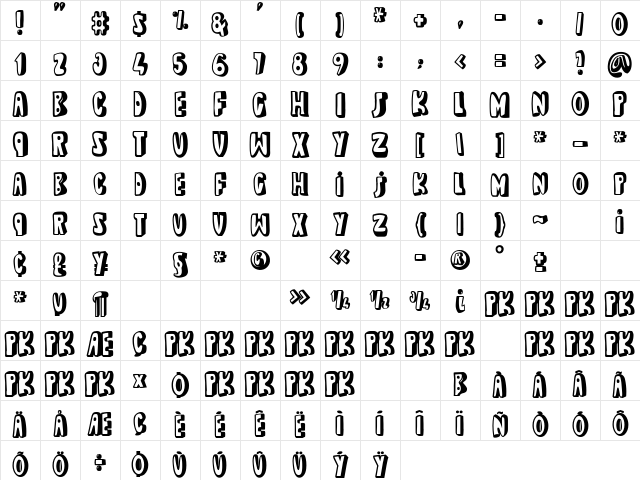
dead wallace UP is a composed and adaptable typeface that performs quietly and consistently across a wide range of design contexts.
Who designed the dead wallace UP Regular font?